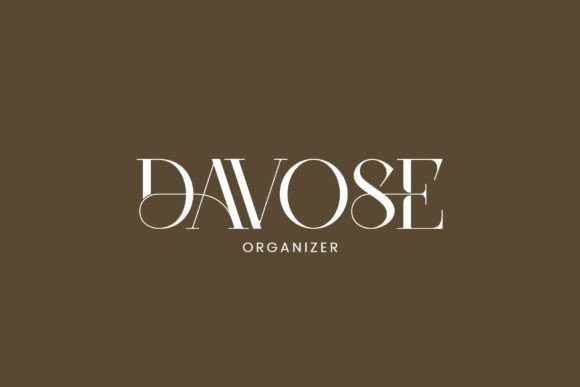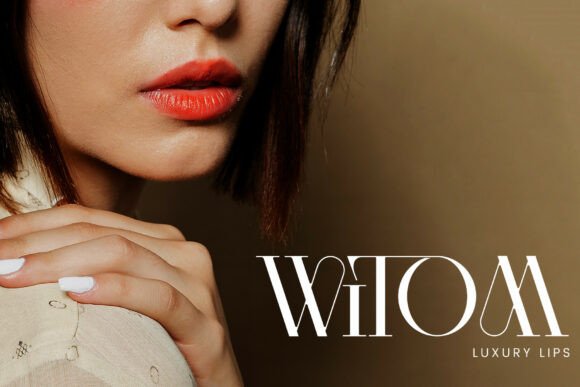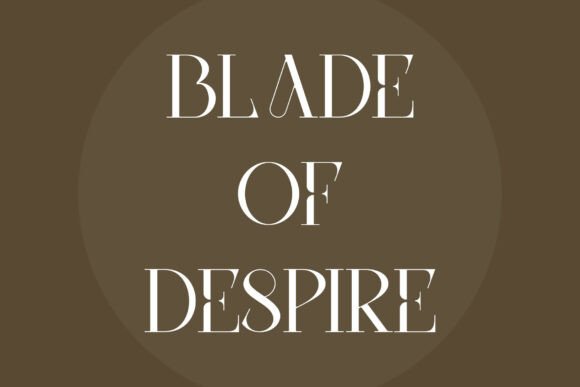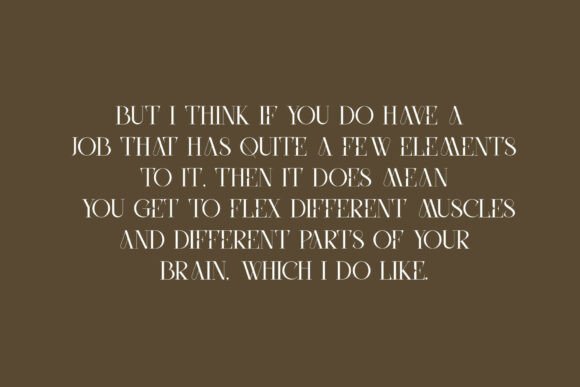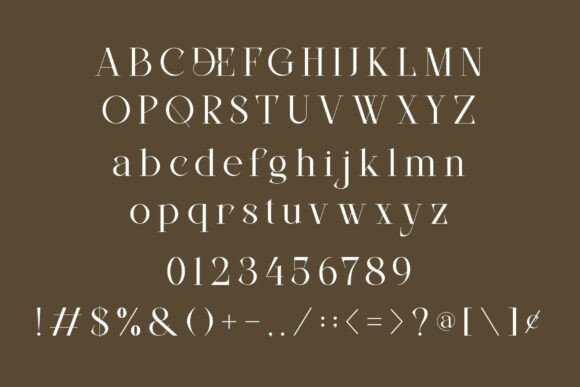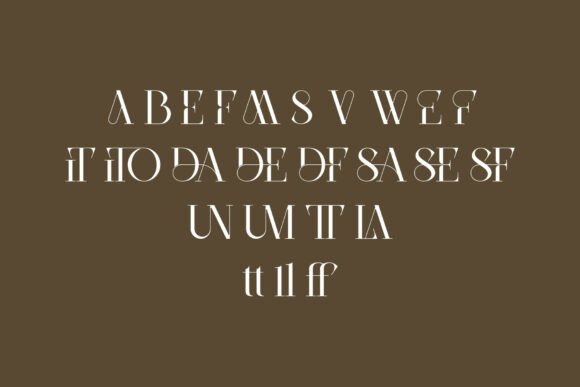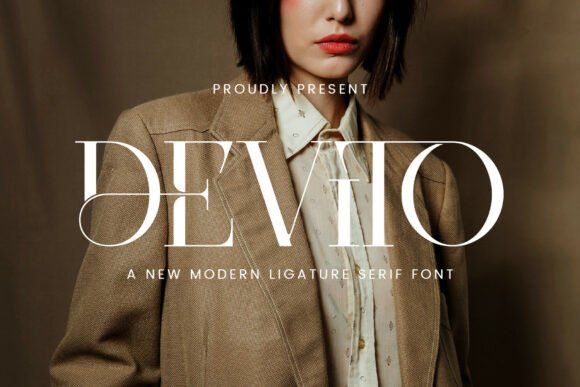
Introducing Devito Font: Elevate Your Brand’s Aesthetic with Sophistication and Elegance
In the world of typography, a font can make or break a brand’s identity. For those seeking to convey a sense of luxury, sophistication, and modernity, Devito Font is the perfect solution. This high-fashion display serif font is designed to capture the essence of a “sophisticated-and-seamless” soul, making it an ideal choice for brands that want to stand out in the competitive world of fashion, jewelry, cosmetics, and lifestyle.
The Unique Characteristics of Devito Font
Devito Font boasts elegant, high-contrast letterforms that are uniquely characterized by rhythmic, hand-crafted “ligature” connections. These connections add a touch of sophistication and fluidity to the font, setting it apart from more traditional serif fonts. Additionally, Devito features graceful sweeping swashes that bridge the gap between editorial luxury and modern minimalist branding. This perfect balance of classic and contemporary elements makes Devito a versatile font that can be used in a variety of creative applications.
Key Features of Devito Font
- High-contrast letterforms: Devito’s letterforms are designed with a high level of contrast, creating a sense of elegance and sophistication.
- Rhythmic ligature connections: The hand-crafted ligature connections in Devito add a touch of fluidity and rhythm to the font, making it perfect for use in editorial and luxury branding applications.
- Graceful sweeping swashes: Devito’s swashes add a touch of drama and flair to the font, making it perfect for use in high-impact applications such as social media headers and premium packaging.
- Balanced structural weight: Devito’s balanced structural weight makes it easy to read and versatile for use in a variety of applications.
- Prestigious personality: Devito exudes a sense of luxury and sophistication, making it perfect for brands that want to convey a sense of high-end quality and exclusivity.
Perfect for Fashion, Jewelry, Cosmetics, and Lifestyle Brands
Devito Font is the premier choice for independent fashion house identities, boutique jewelry logos, premium cosmetic packaging, and high-impact “chic-and-contemporary” social media headers. Its elegant and sophisticated design makes it perfect for brands that want to convey a sense of luxury and exclusivity. Whether you’re looking to create a bold and eye-catching logo or a sophisticated and elegant brand identity, Devito Font is the perfect solution.
Why Choose Devito Font?
There are many fonts on the market that claim to offer a sense of luxury and sophistication, but Devito Font stands out from the crowd. Here are just a few reasons why:
- Unique and distinctive design: Devito’s unique combination of high-contrast letterforms, rhythmic ligature connections, and sweeping swashes makes it a truly distinctive font that will set your brand apart.
- Versatile and adaptable: Devito Font is versatile and adaptable, making it perfect for use in a variety of creative applications, from logos and branding to packaging and social media headers.
- High-quality and professional: Devito Font is a high-quality, professional font that is designed to meet the needs of discerning designers and brands.
| Font Name | Devito Font |
| Author | AnnofaType |
In conclusion, Devito Font is a high-fashion display serif font that is perfect for brands that want to convey a sense of luxury, sophistication, and modernity. Its unique combination of elegant letterforms, rhythmic ligature connections, and sweeping swashes makes it a truly distinctive font that will set your brand apart. Whether you’re a fashion designer, jeweler, cosmetics brand, or lifestyle entrepreneur, Devito Font is the perfect choice for elevating your brand’s aesthetic and making a lasting impression on your target audience.